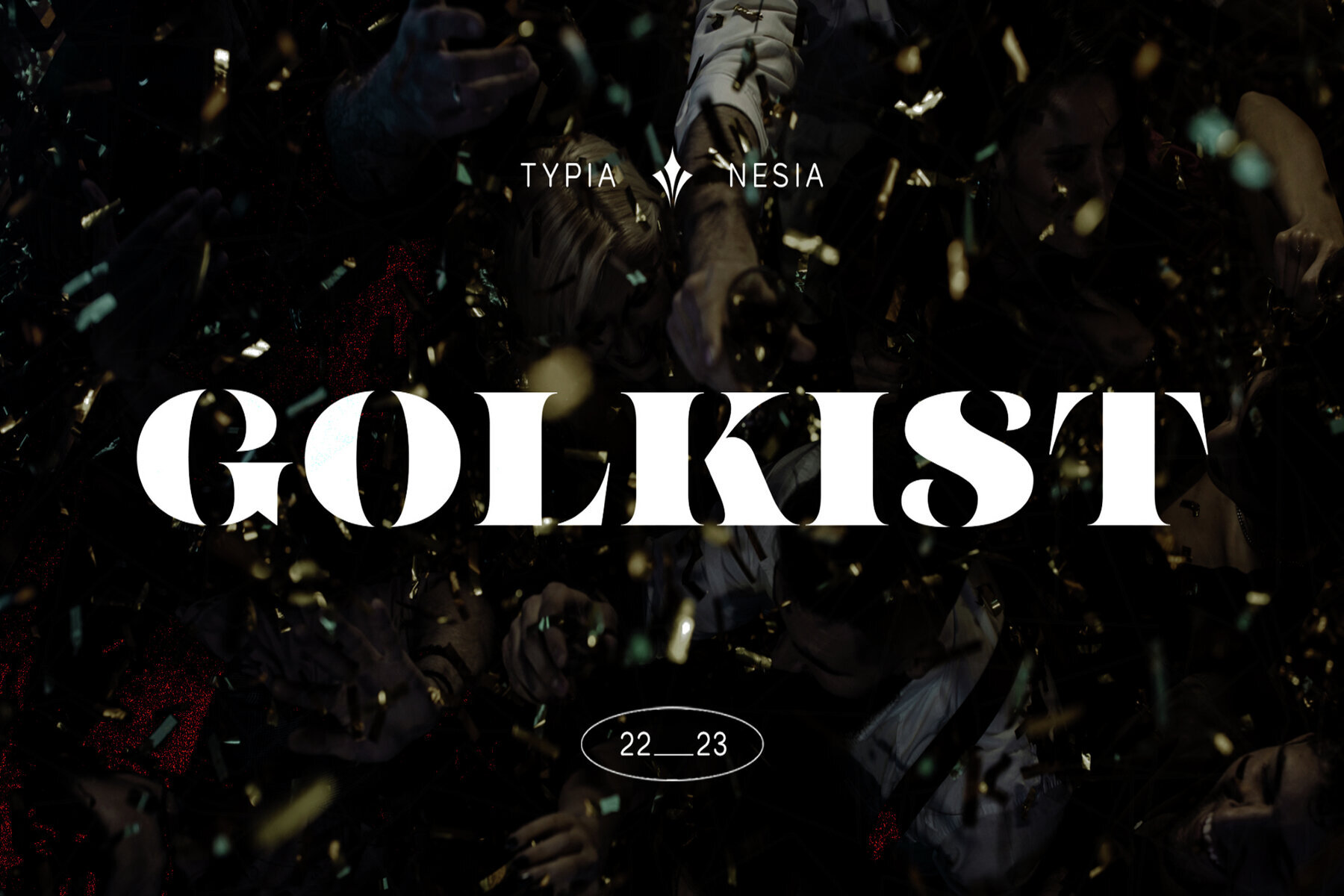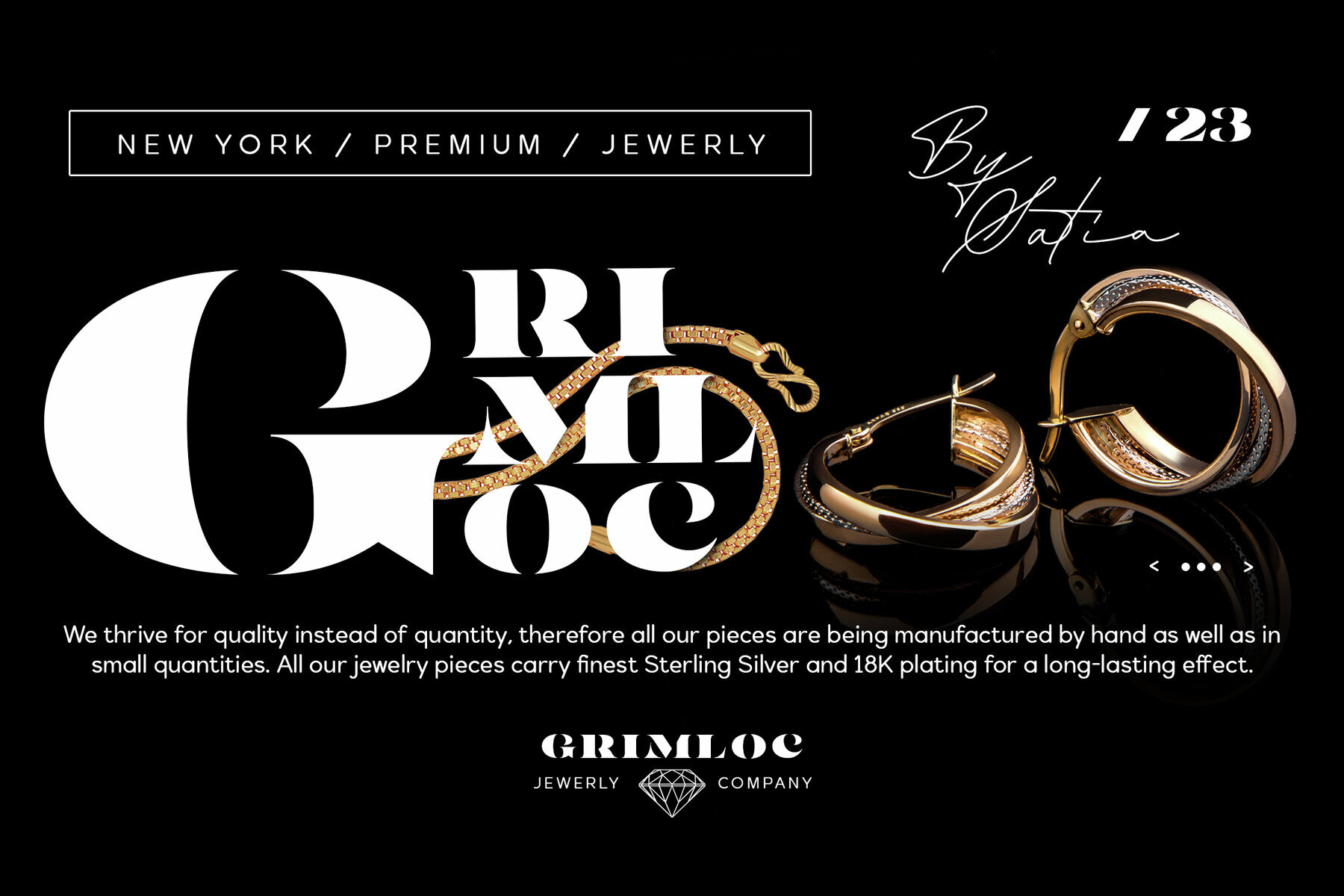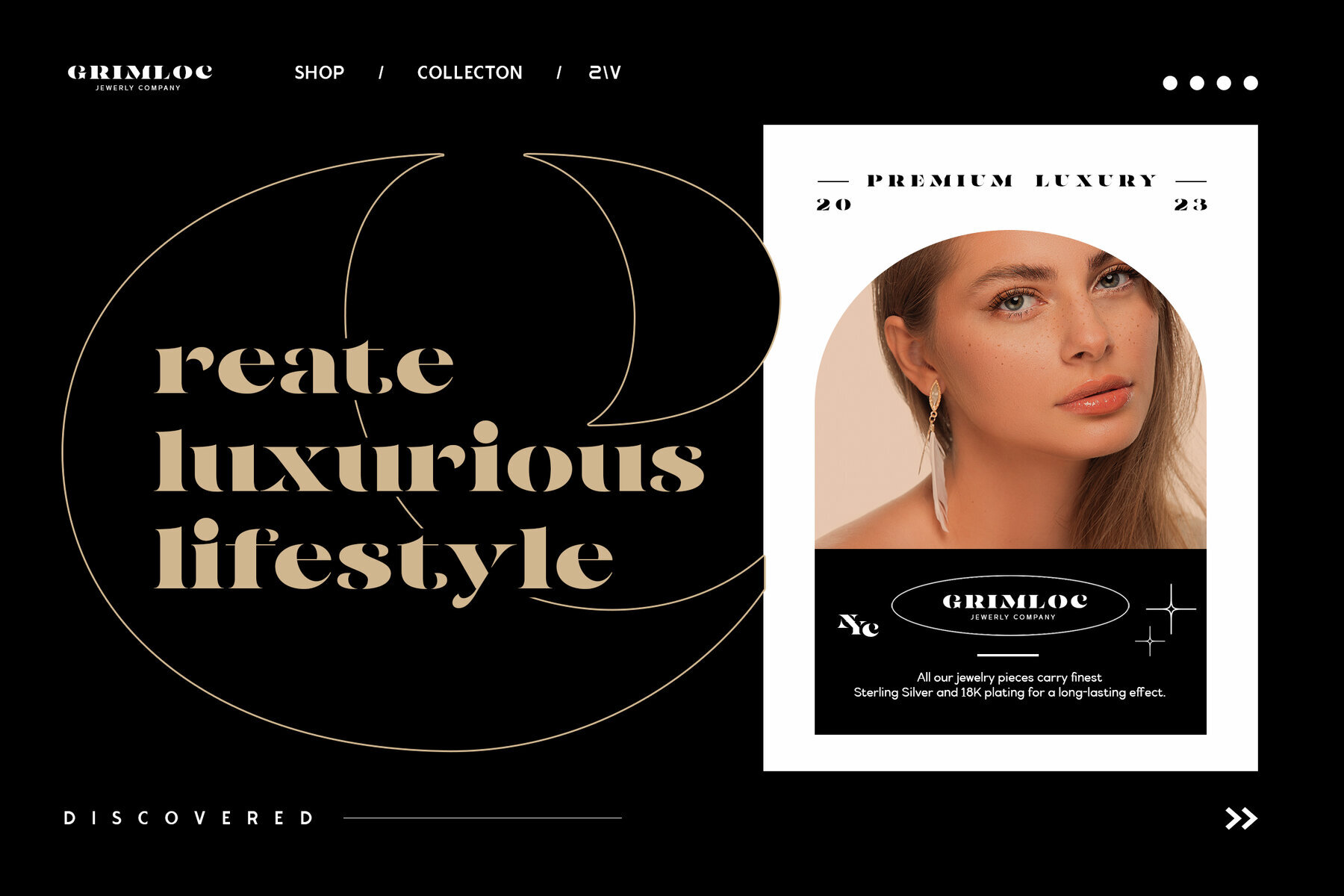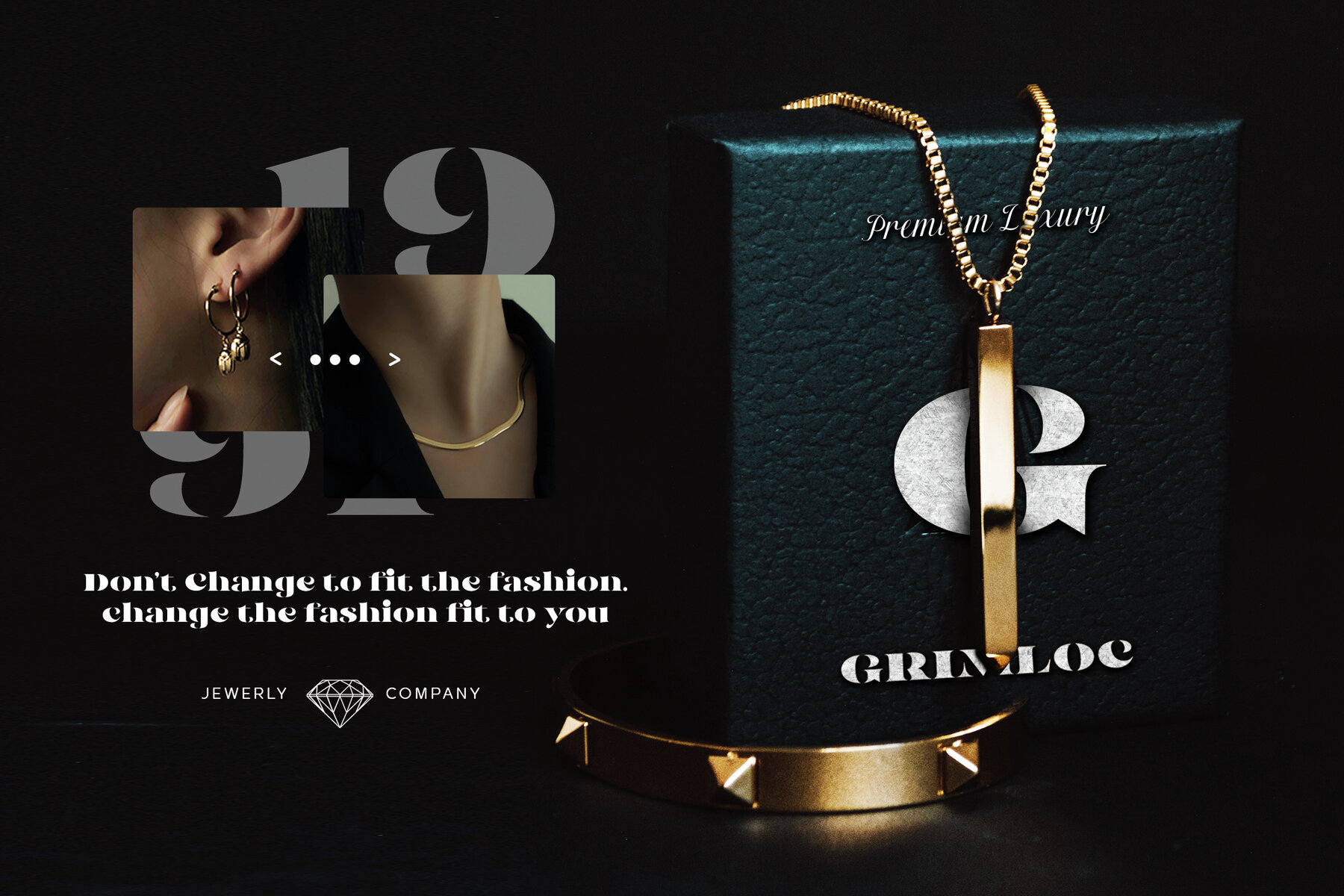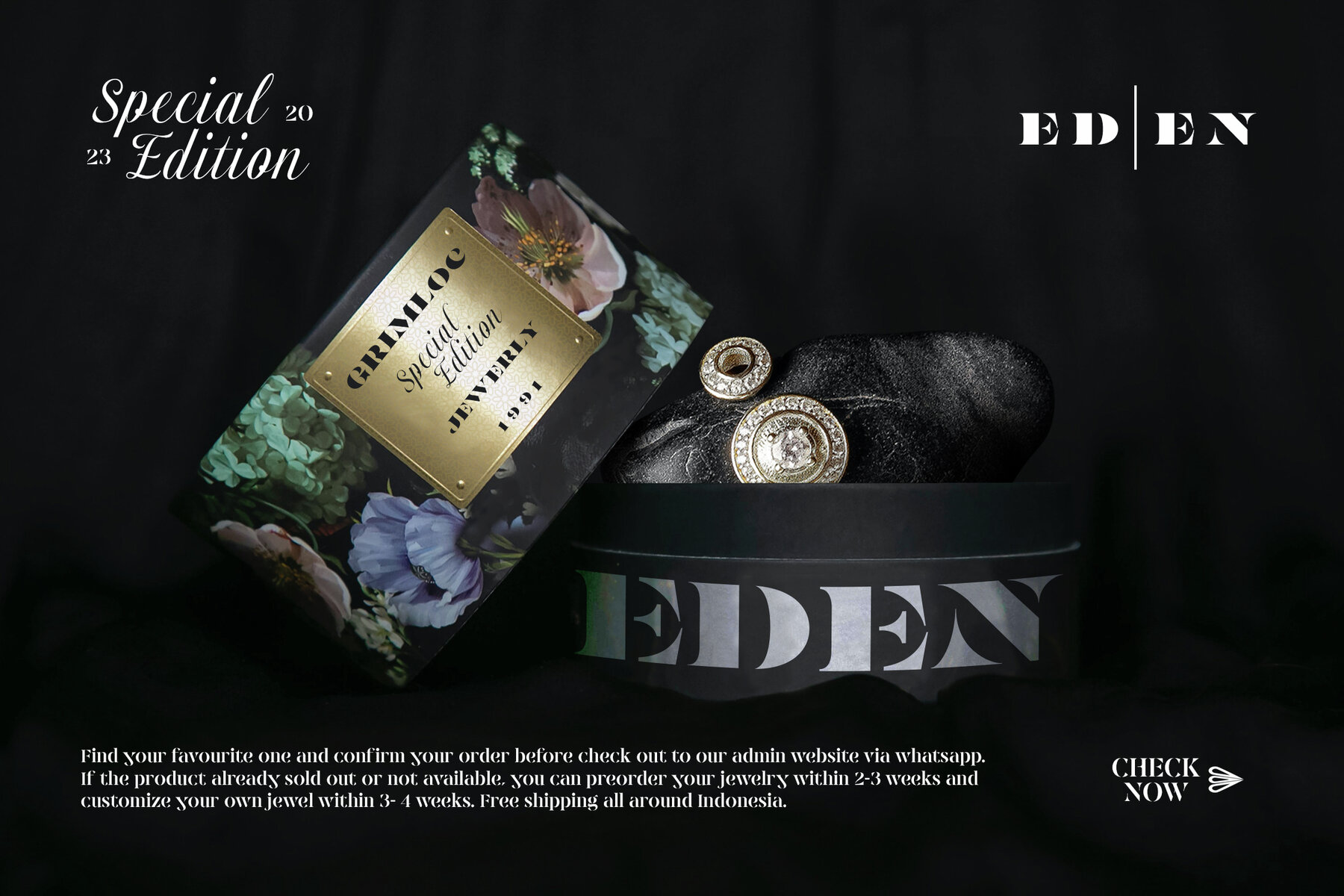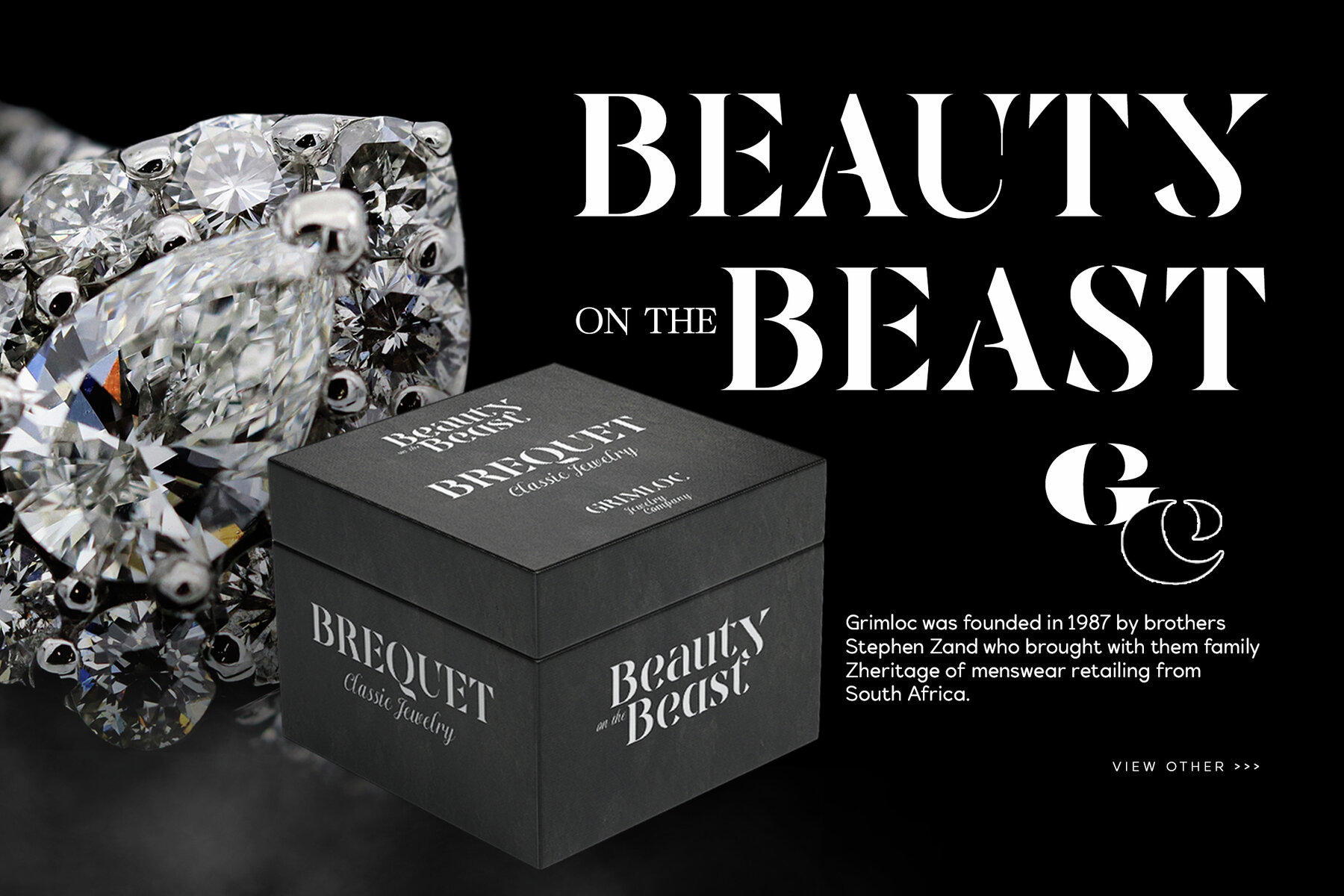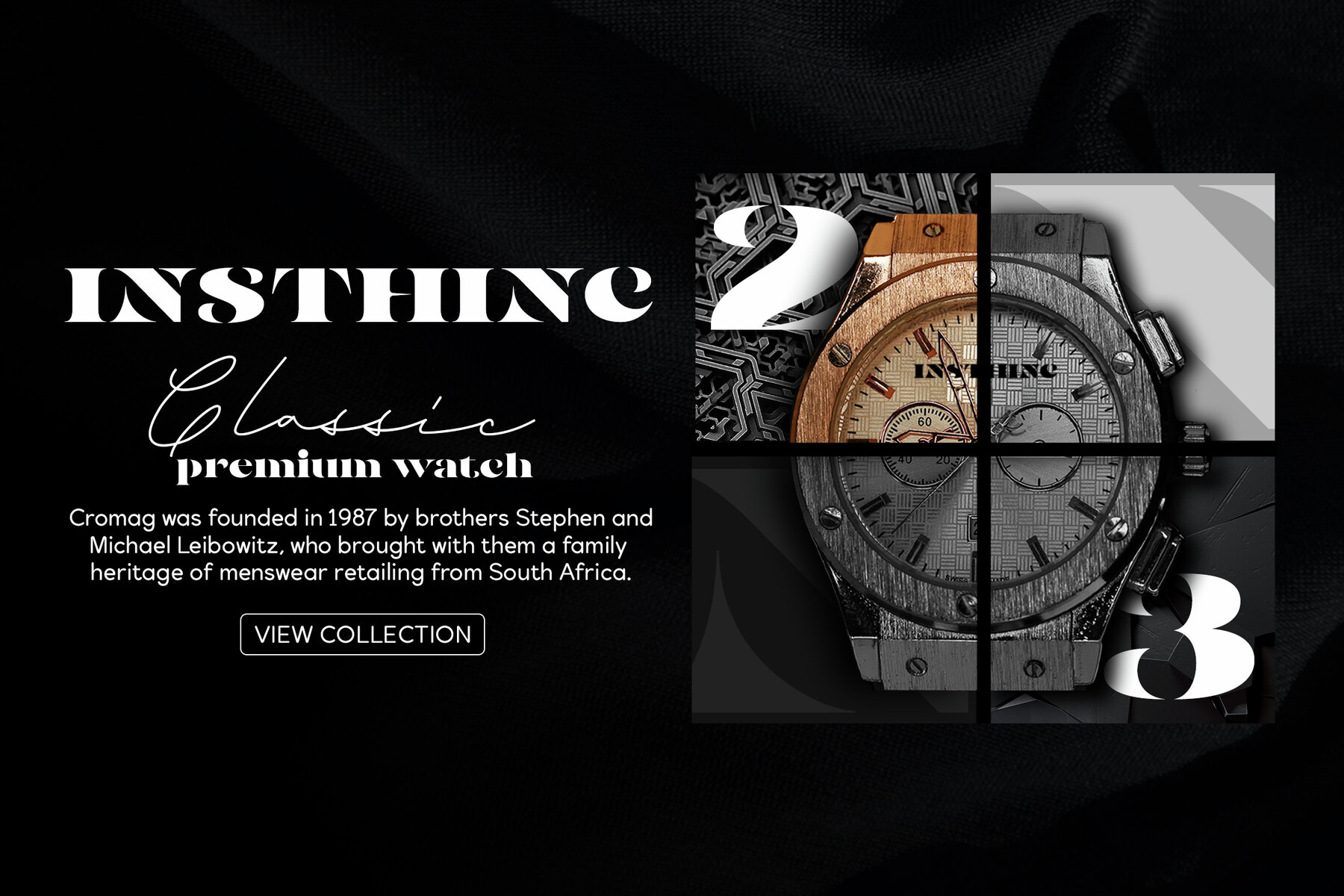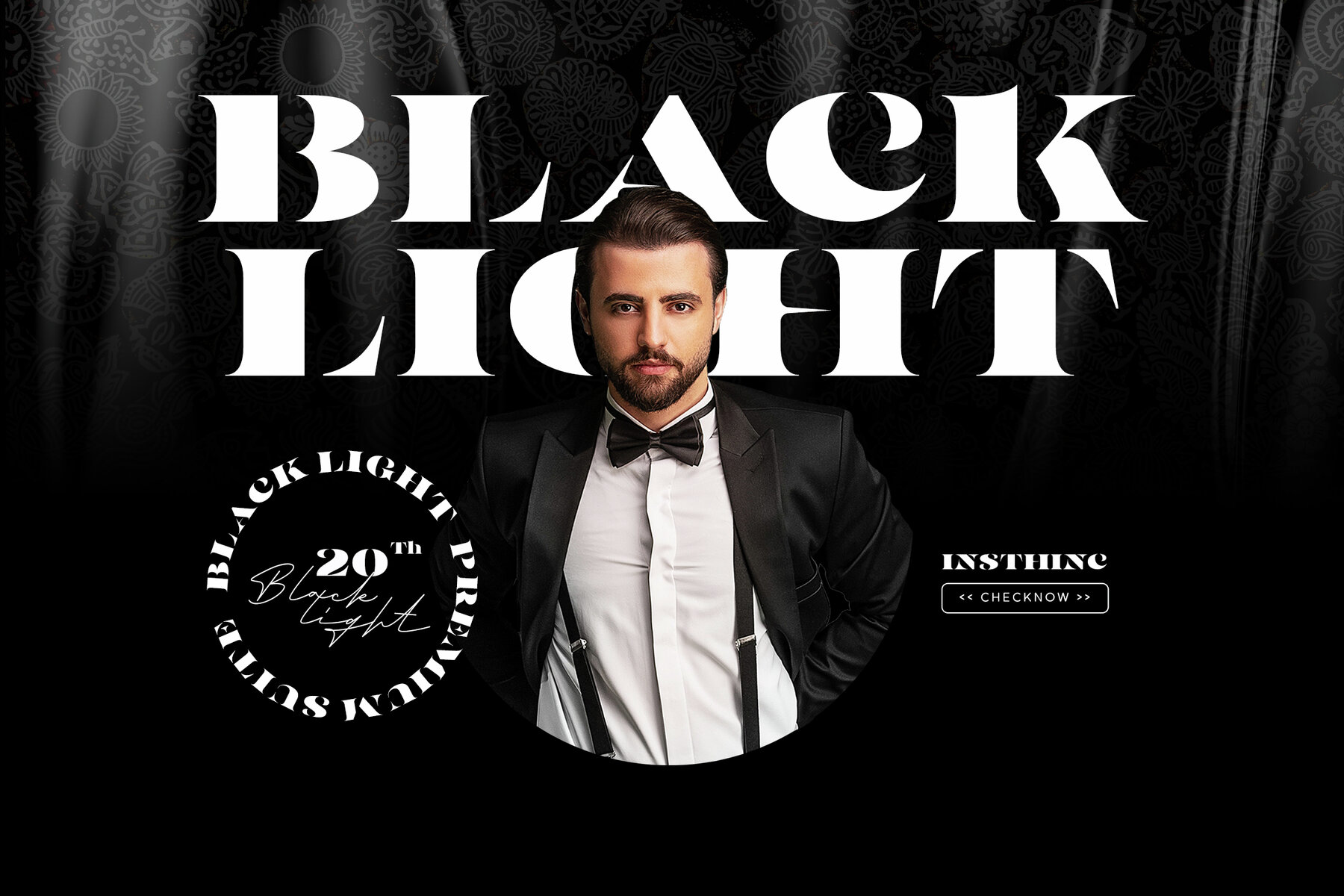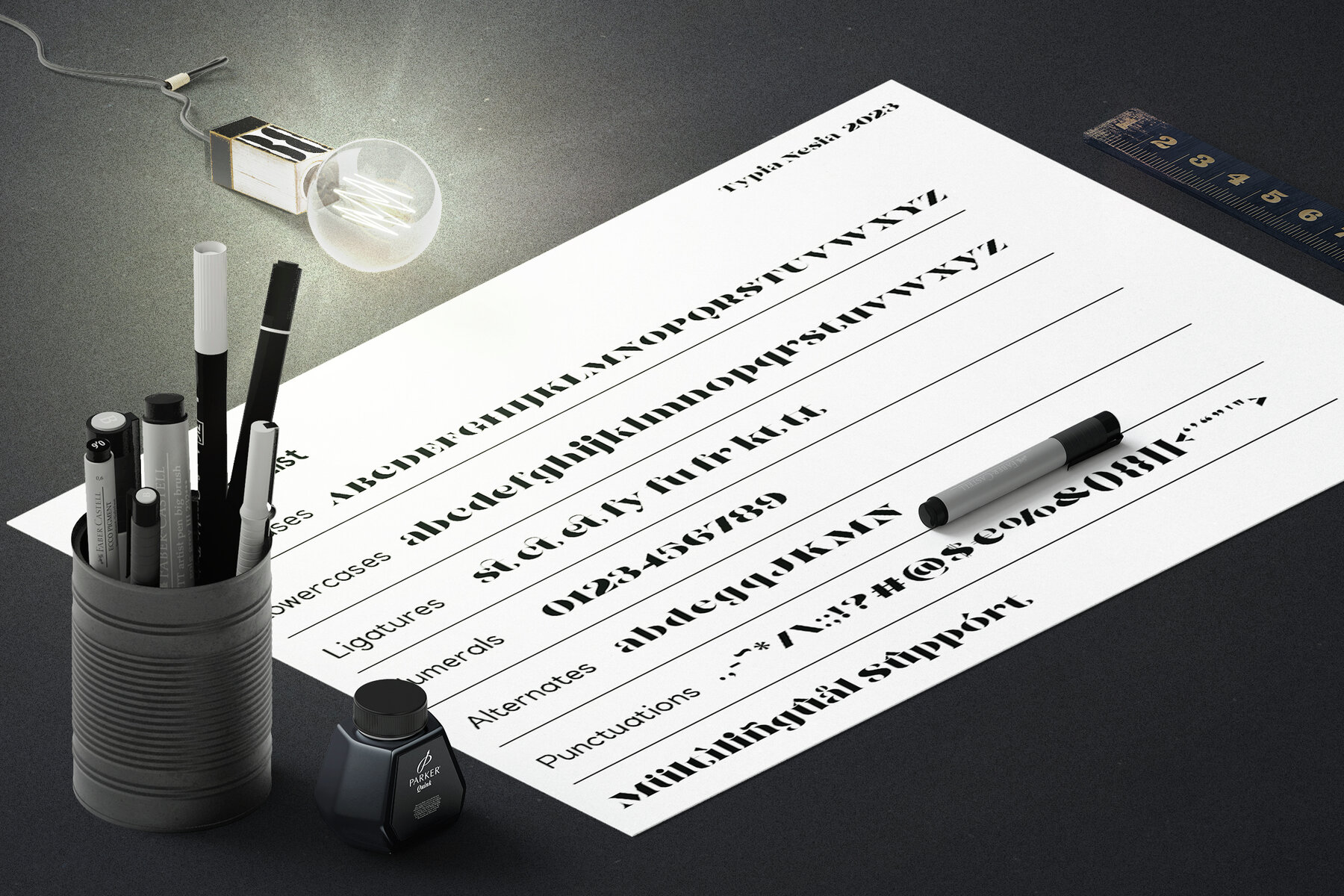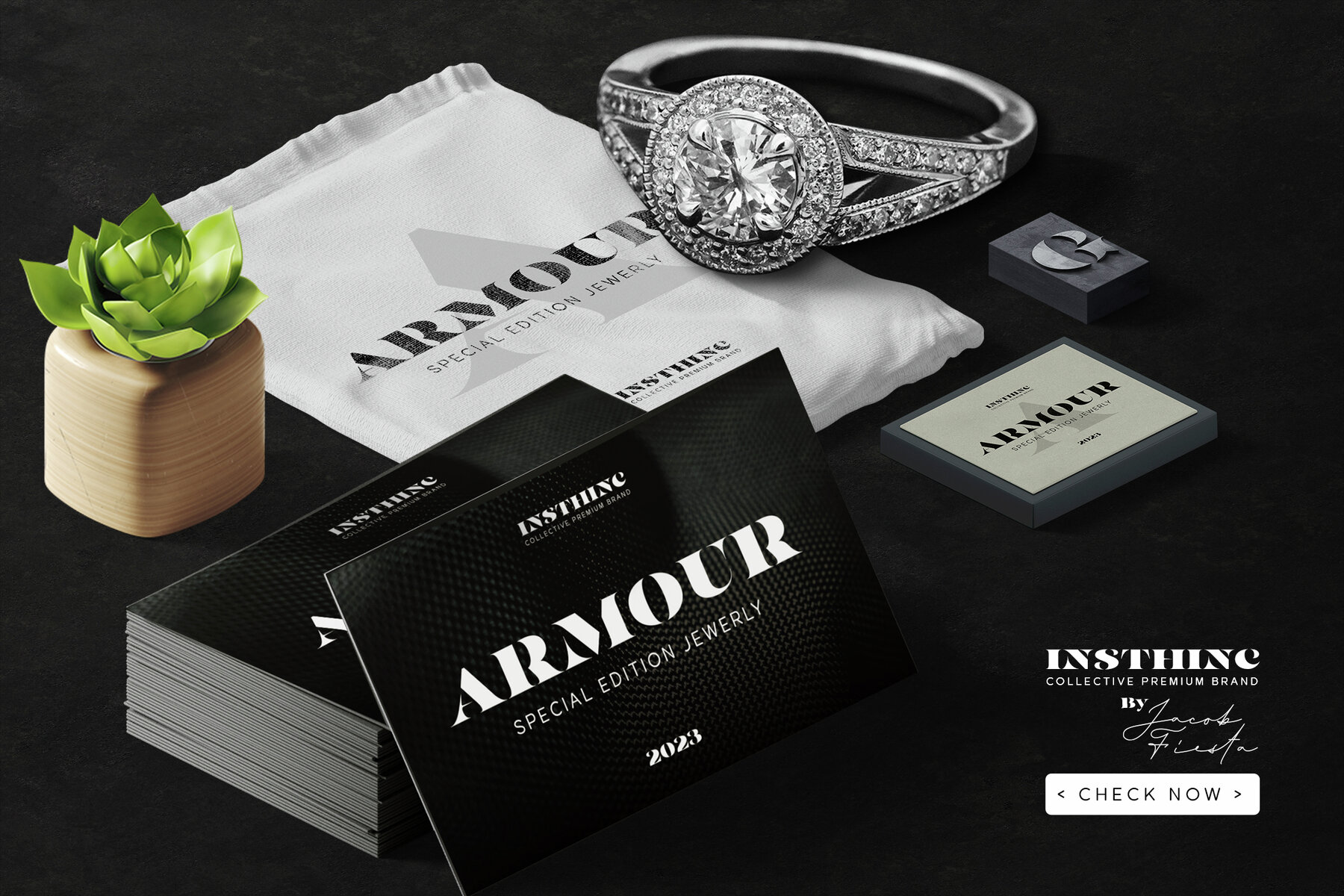
Golkist Font
Golkist Regular
Golkist is a sophisticated Luxury Stencil Serif typeface meticulously crafted to exude opulence and elegance. Its design seamlessly combines the classic stencil aesthetic with a touch of modern luxury, making it perfect for high-end applications.Golkist: Stencil Serif for Premium Designs